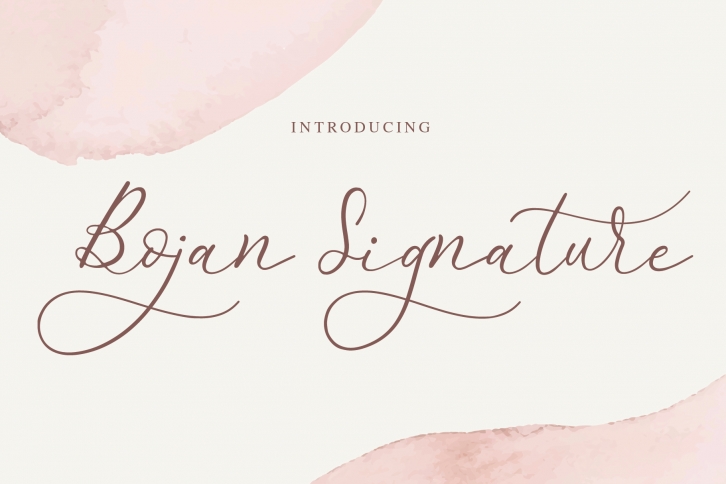
Bojan Signature is a beautiful light handwritten font with a unique feel and a stunning impact. It will add a luxury spark to any design project you wish to create! Add this lovely freebie to your creations, and take your designs to the next level!